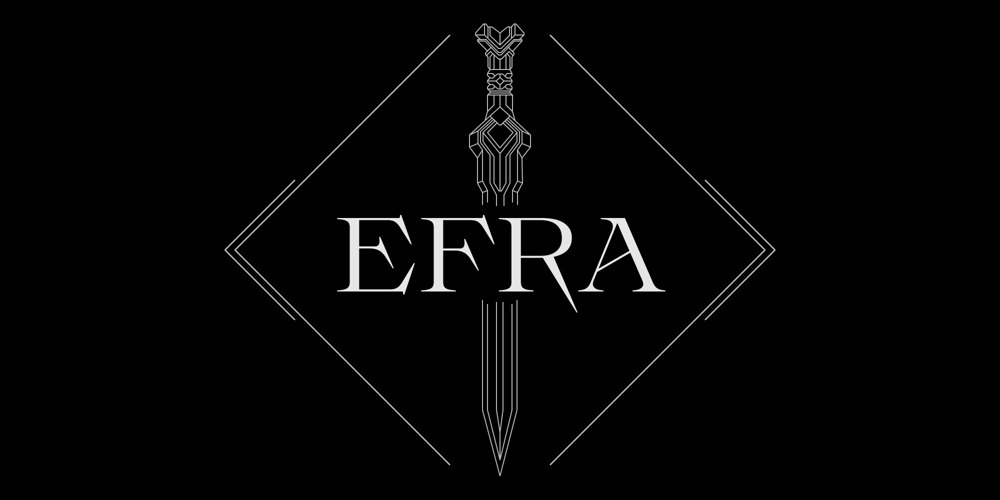
Efra Font Family was designed by Eugene Bunin and published by Harvester Type. Efra contains 1 styles and family package options. Efra is an unusual antique that combines classic antiques and modern forms. Sharp and perfectly designed shapes, well-designed kerning and multifunctional design. This is just one side of the font that will become a special part for your design.Support for more than 90 languages. Extended Latin and Cyrillic alphabet. Elaborated characters, kerning and about 400 characters.If you have any questions or problems, please contact us by email: bunineugene@gmail.com